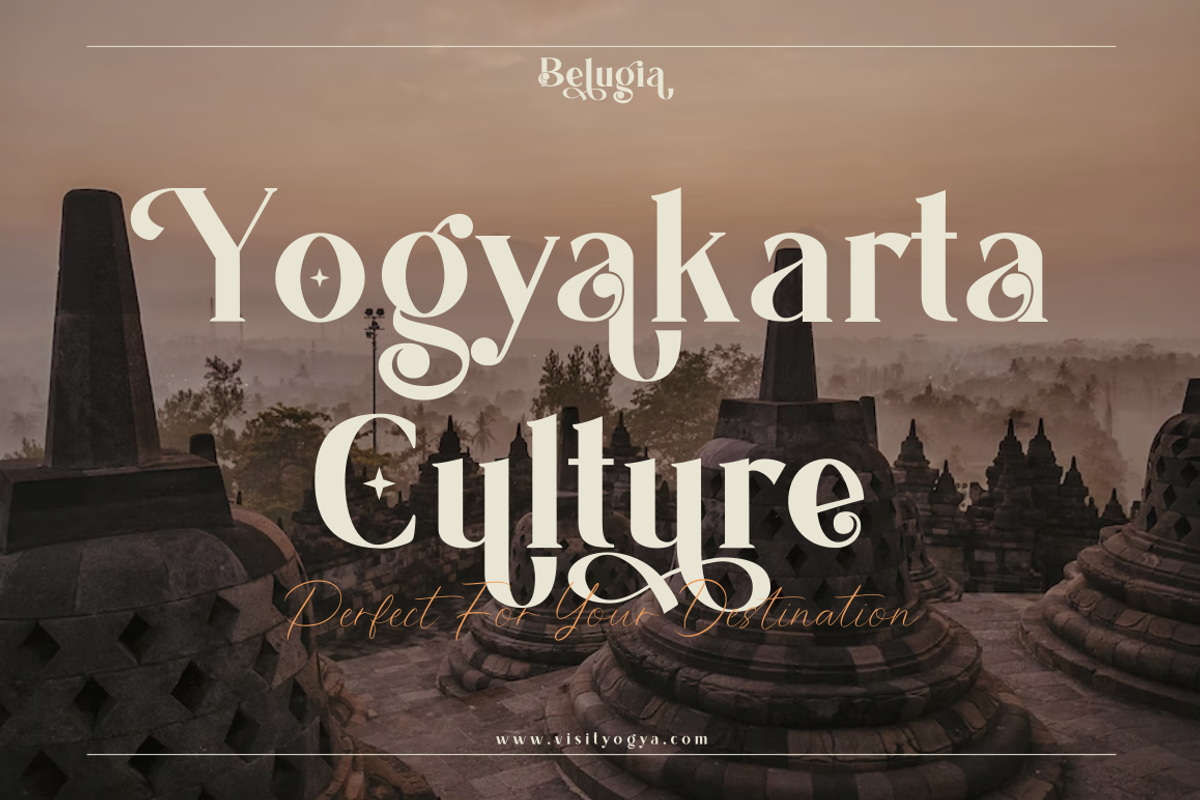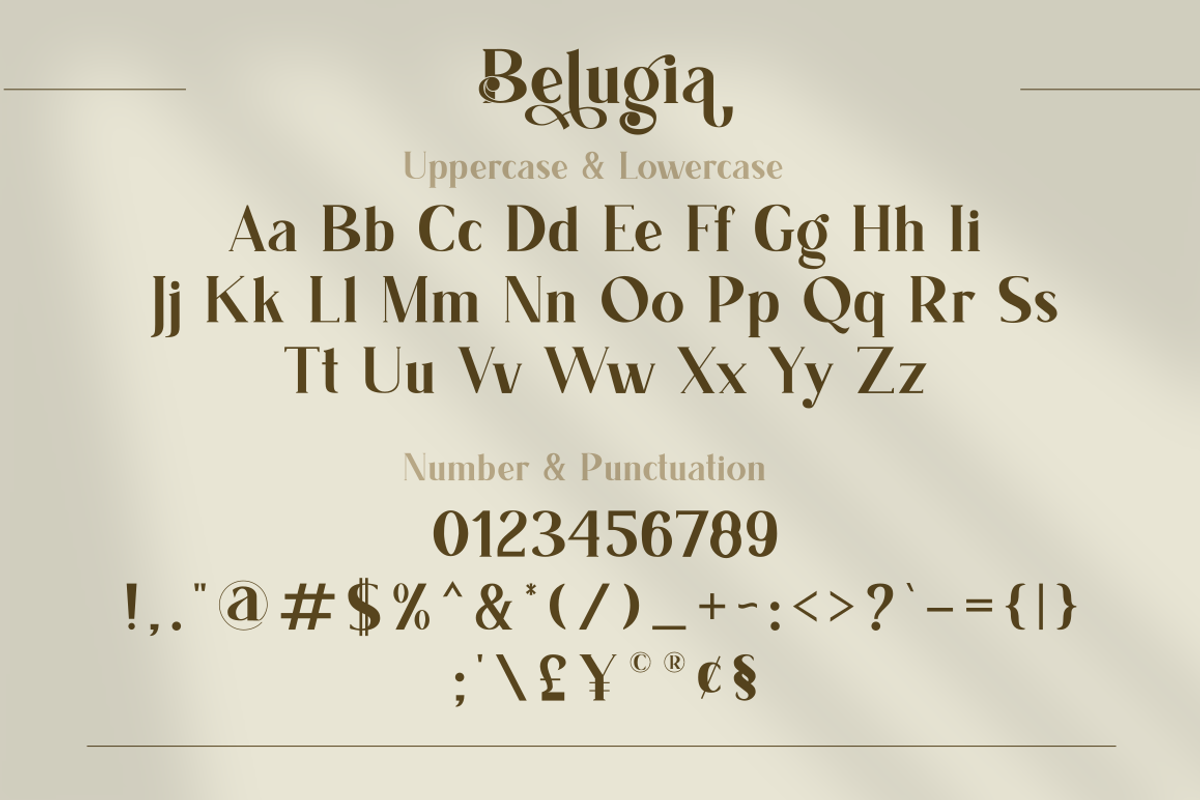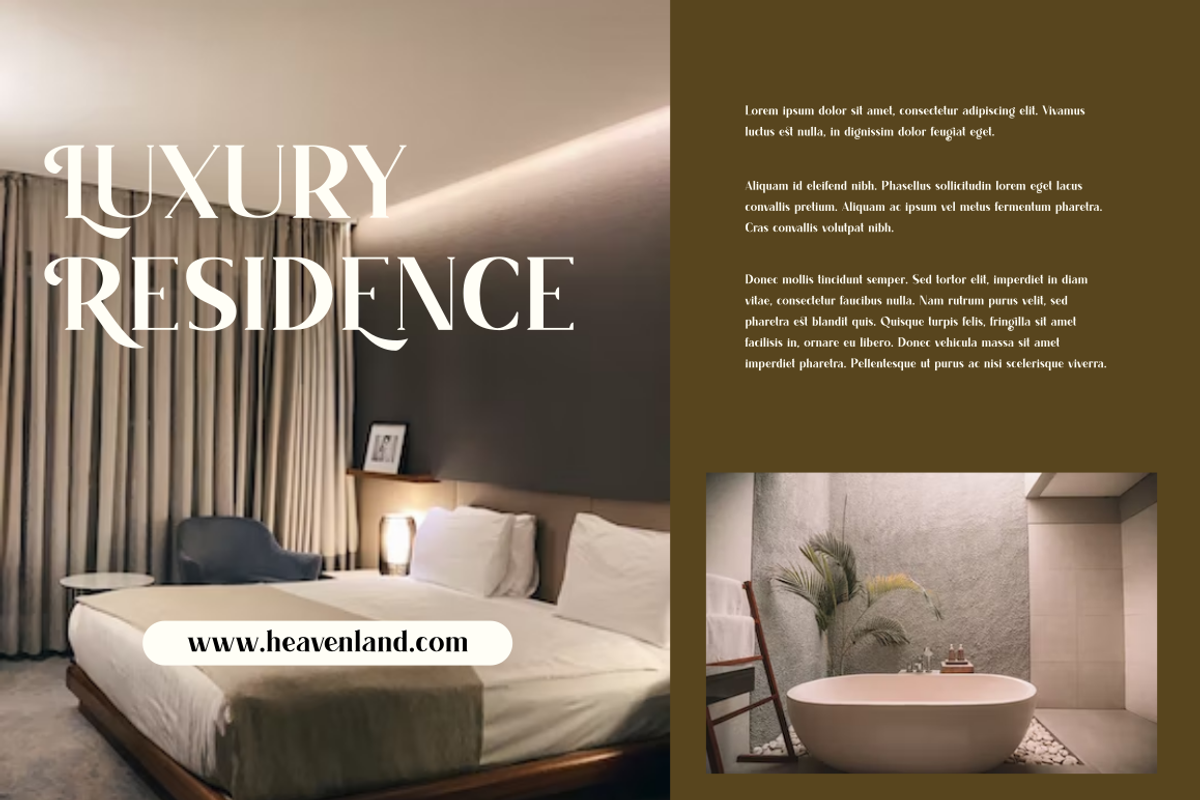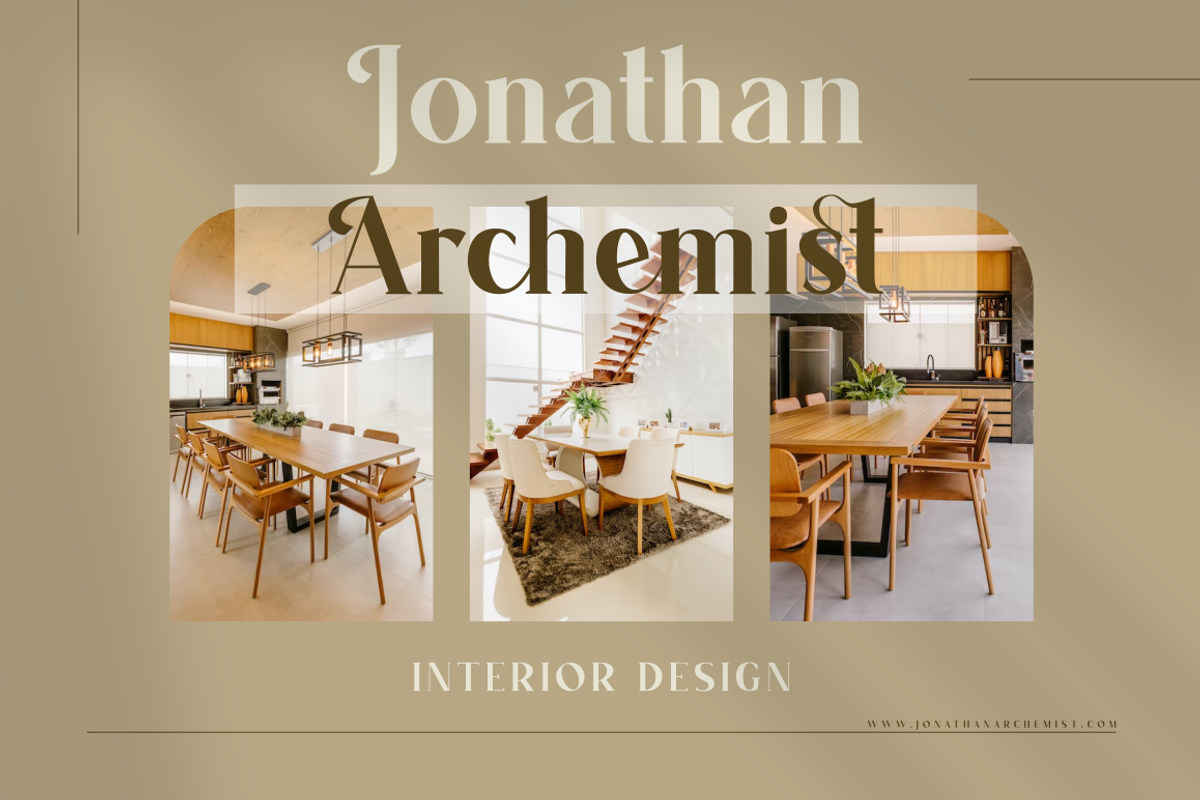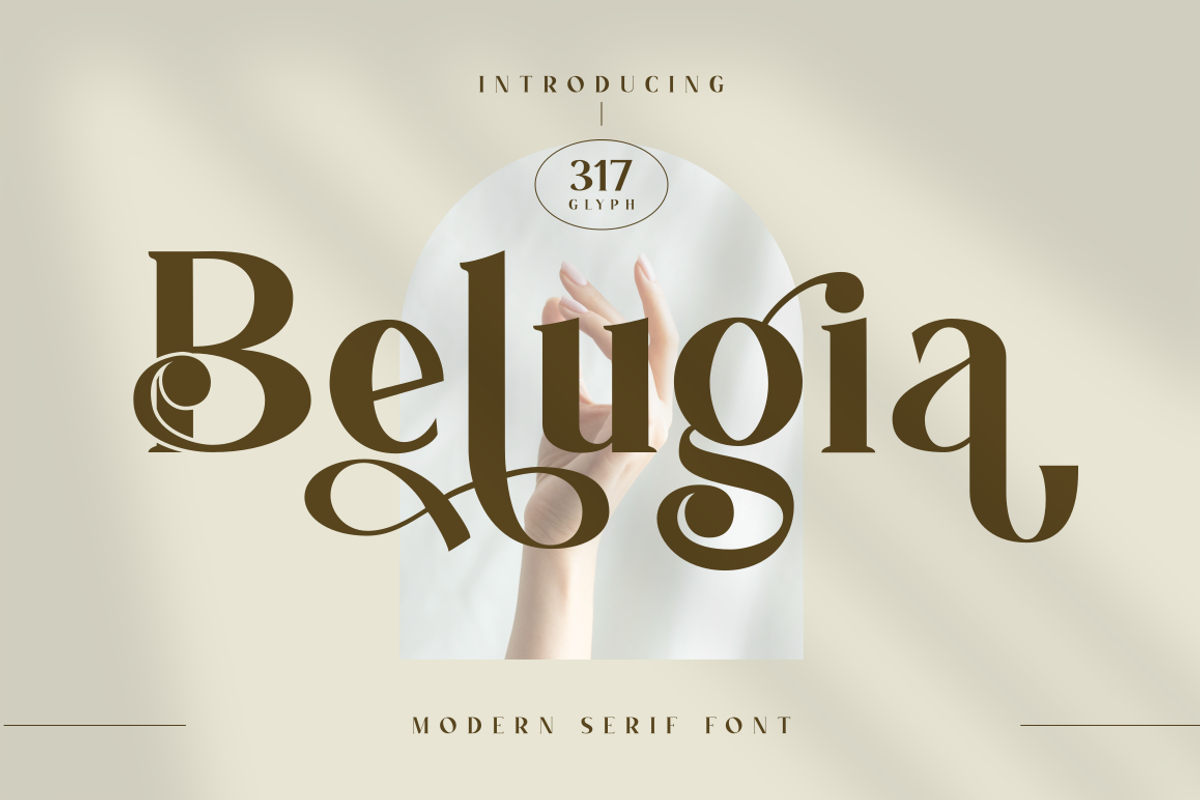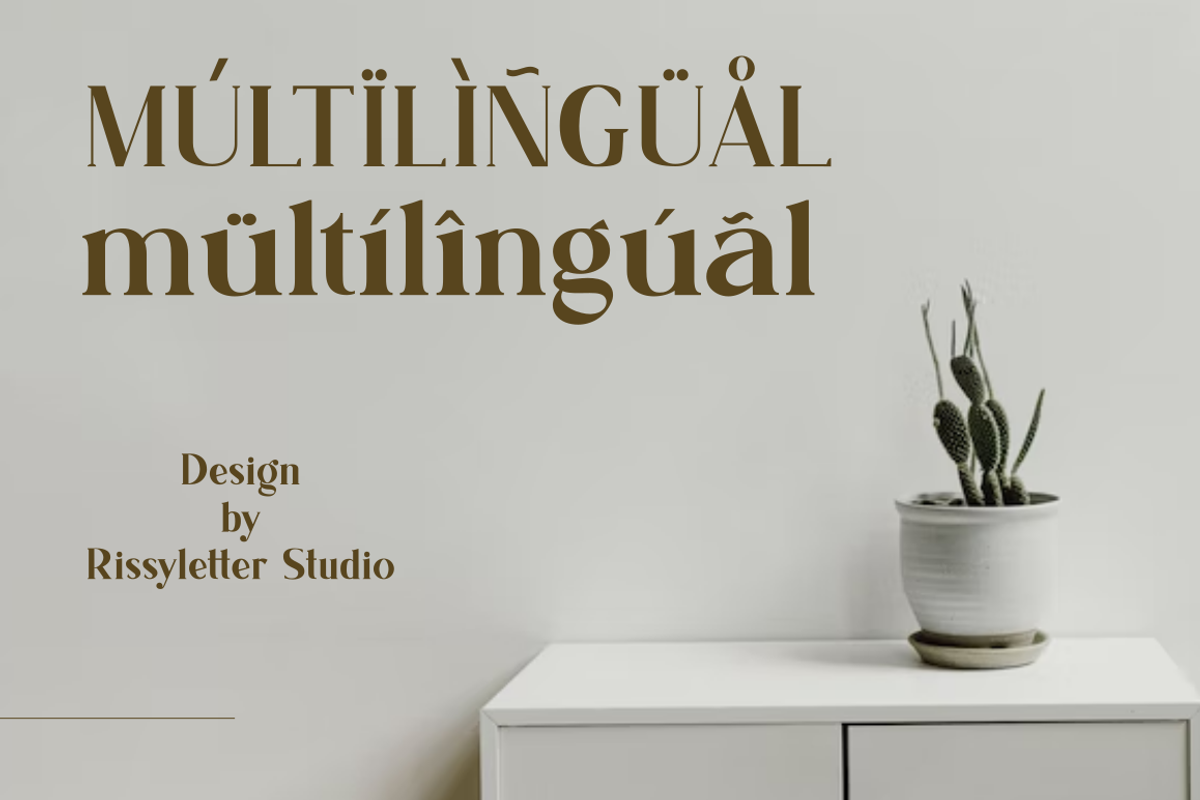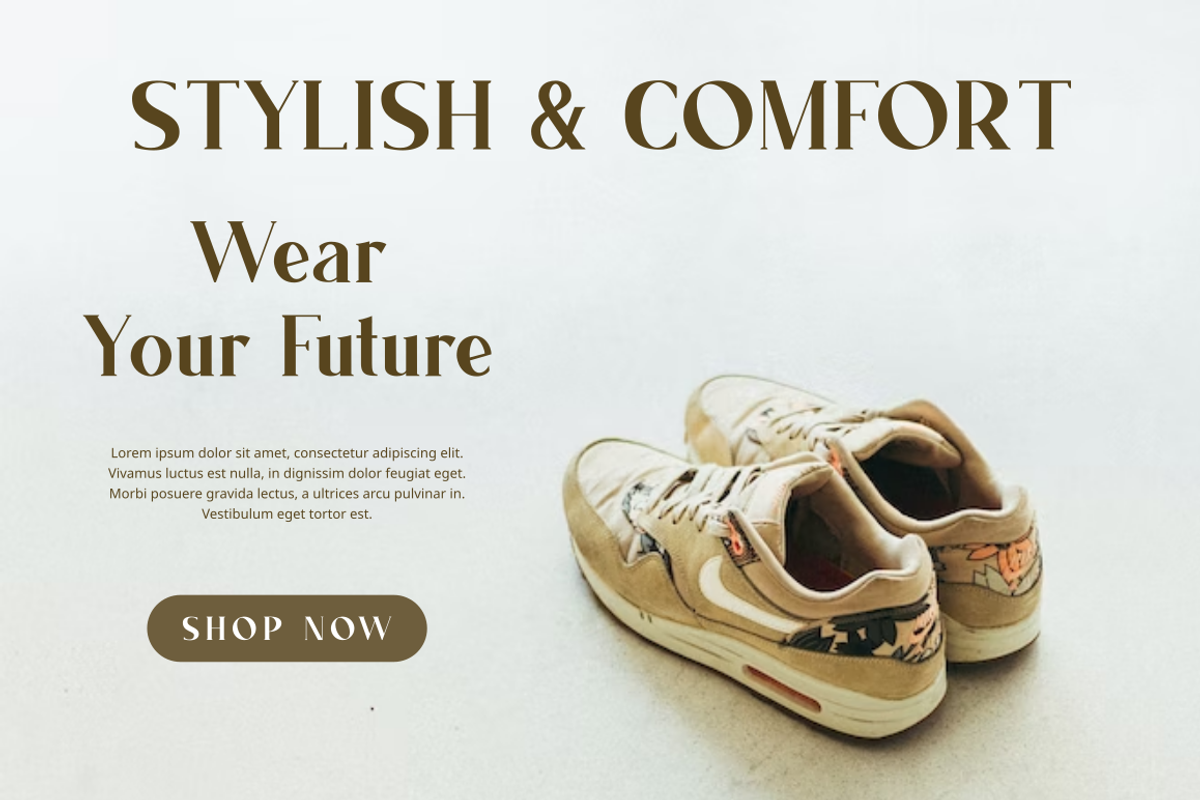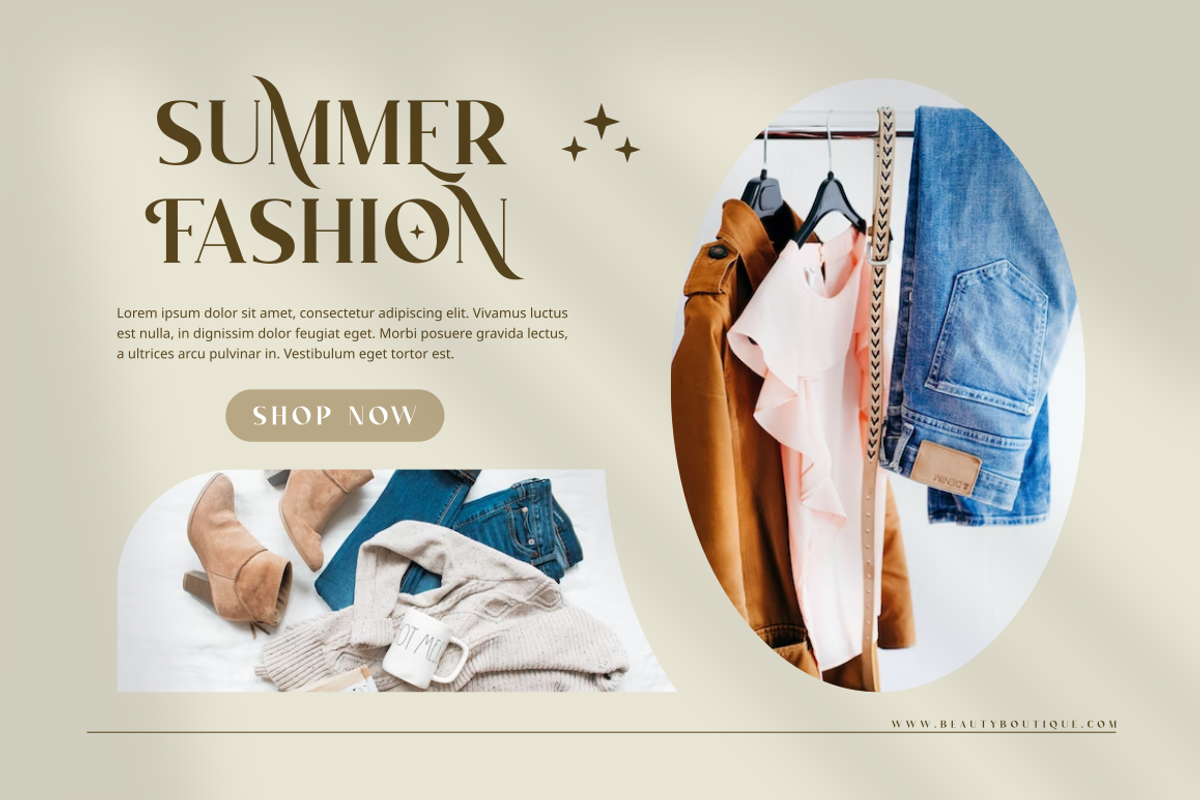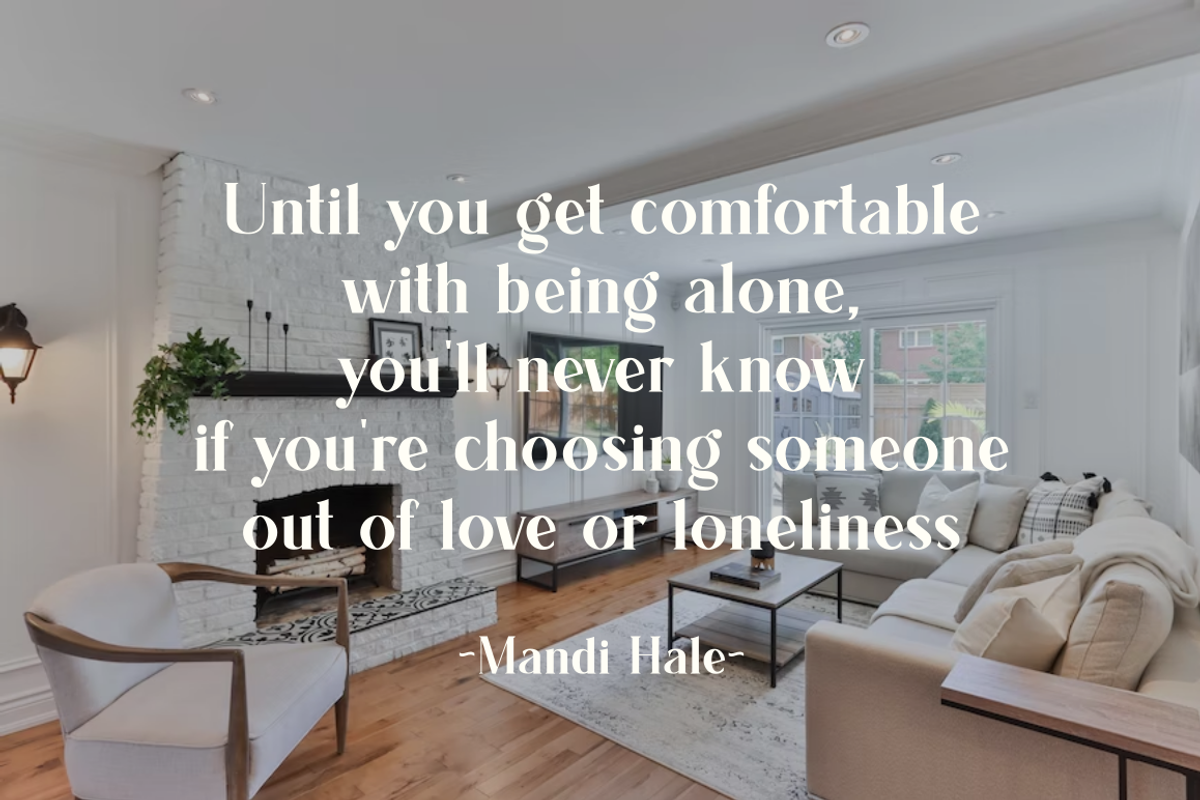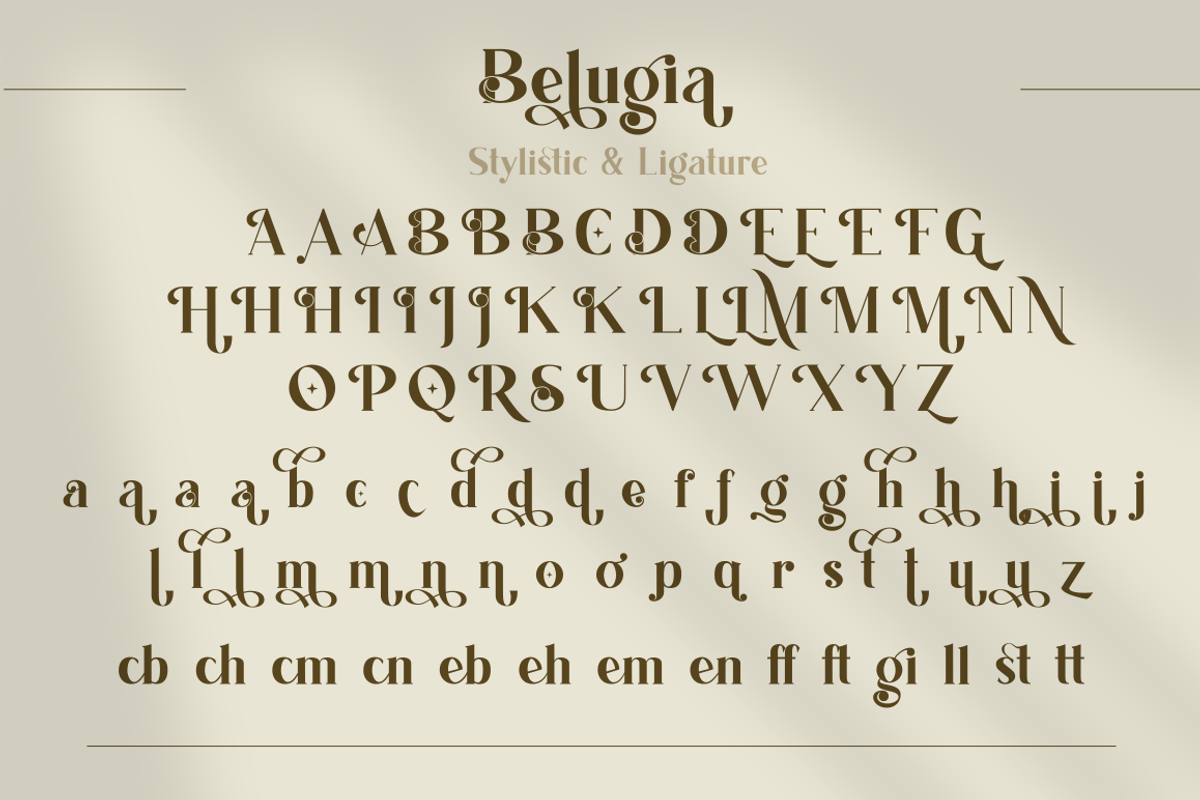
Belugia | Elegant Display Serif
Make the typography logo on your brand more elegant and professional by using the Belugia font,
Belugia font is a serif font that has thick and thin strokes that contrast in the glyphs and is made with a straight line structure and smooth curves so that the Belugia font looks professional and elegant, and there are alternative letters and ligatures to make your typography design look unique and attractive.
Belugia font is also perfect for various projects such as hand lettering, merchandise, advertisements, invitations, social media posts, video thumbnails, quotes and etc.
- More than 310 of glyphs (include Uppercase, Lowercase, Numerals & Punctuations, Ligatures and Stylistic)
- multilingual support
- PUA Encoded Characters (fully accessible without additional design software)
Support For Language :
Albanian, Basque, Breton, Chamorro, Danish, Dutch, English, Finnish, French, Frisian, Galician, German, Italian, Malagasy, Norwegian, Portuguese, Spanish, Alsatian, Aragonese, Arapaho, Arrernte, Asturian, Aymara, Bislama, Cebuano, Corsican, Fijian, French_creole, Genoese, Gilbertese, Greenlandic, Haitian_creole, Hiligaynon, Hmong, Hopi, Ibanag, Iloko_ilokano, Indonesian, Interglossa_glosa, Interlingua, Irish_gaelic, Jerriais, Lojban, Lombard, Luxembourgeois, Manx, Mohawk, Norfolk_pitcairnese, Occitan, Oromo, Pangasinan, Papiamento, Piedmontese, Potawatomi, Rhaeto-romance, Romansh, Rotokas, Sami_lule, Samoan, Sardinian, Scots_gaelic, Seychelles_creole, Shona, Sicilian, Somali, Southern_ndebele, Swahili, Swati_swazi, Tagalog_filipino_pilipino, Tetum, Tok_pisin, Uyghur_latinized, Volapuk, Walloon, Warlpiri, Xhosa, Yapese, Zulu, Latinbasic, Ubasic, Demo